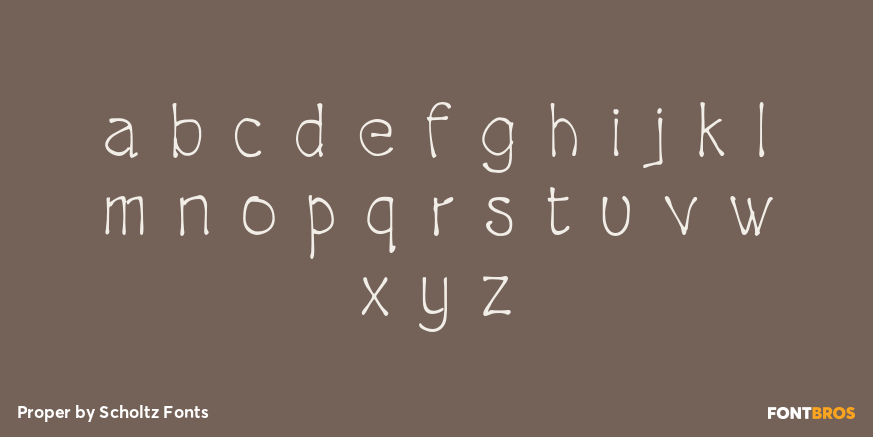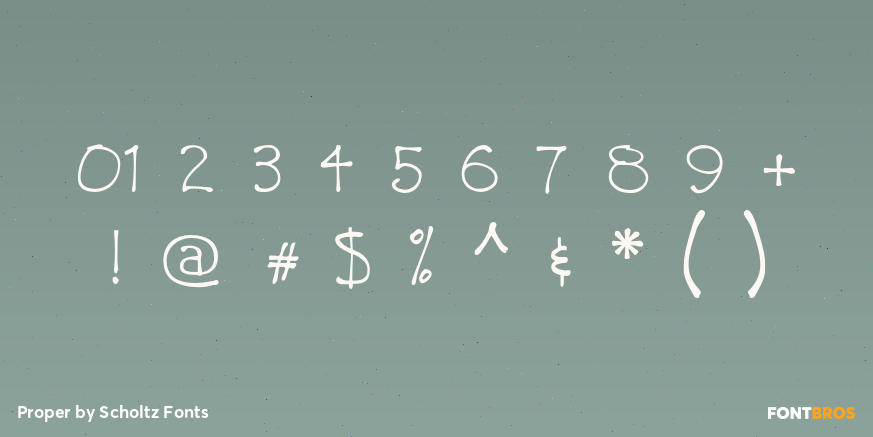
Proper
Font Family by Scholtz Fonts
Free DownloadProper was based on handwritten characters (of my own) that I scanned and then digitally touched up. I kept the digital editing to a minimum so as to preserve the freshness of the original. I did, however, want to convey a sense of propriety and regularity and so my original handwriting was done with quite a lot of control. I kept the size of the lower case characters quite large and this makes the font very readable, even at quite small point sizes.
Proper contains a full character set with all upper and lower case characters, numerals, symbols, accented characters and it has been carefully spaced and kerned.